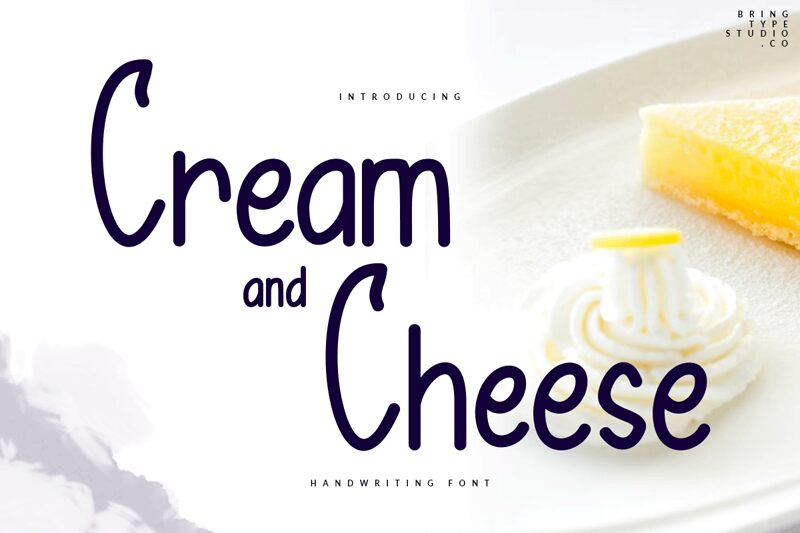
Cream and Cheese Regular
Cream and Cheese font, crafted by bringtypestudio.co, captures the essence of handwritten charm with its distinct light and condensed style. This font radiates a friendly and approachable vibe, making it perfect for projects that require a personal touch. Its unique handwritten aesthetic is ideal for branding, invitations, and social media graphics where an authentic feel is desired.
The effortlessly smooth curves of Cream and Cheese ensure clarity while maintaining personality, offering designers a versatile tool that blends seamlessly into various design contexts. Whether you're crafting eye-catching logos or creating warm greeting cards, this free font download is an excellent choice to convey sincerity and creativity.
With its engaging presence and easy readability, Cream and Cheese stands out as a must-have typeface for any designer seeking to enhance their work with elegance and character.